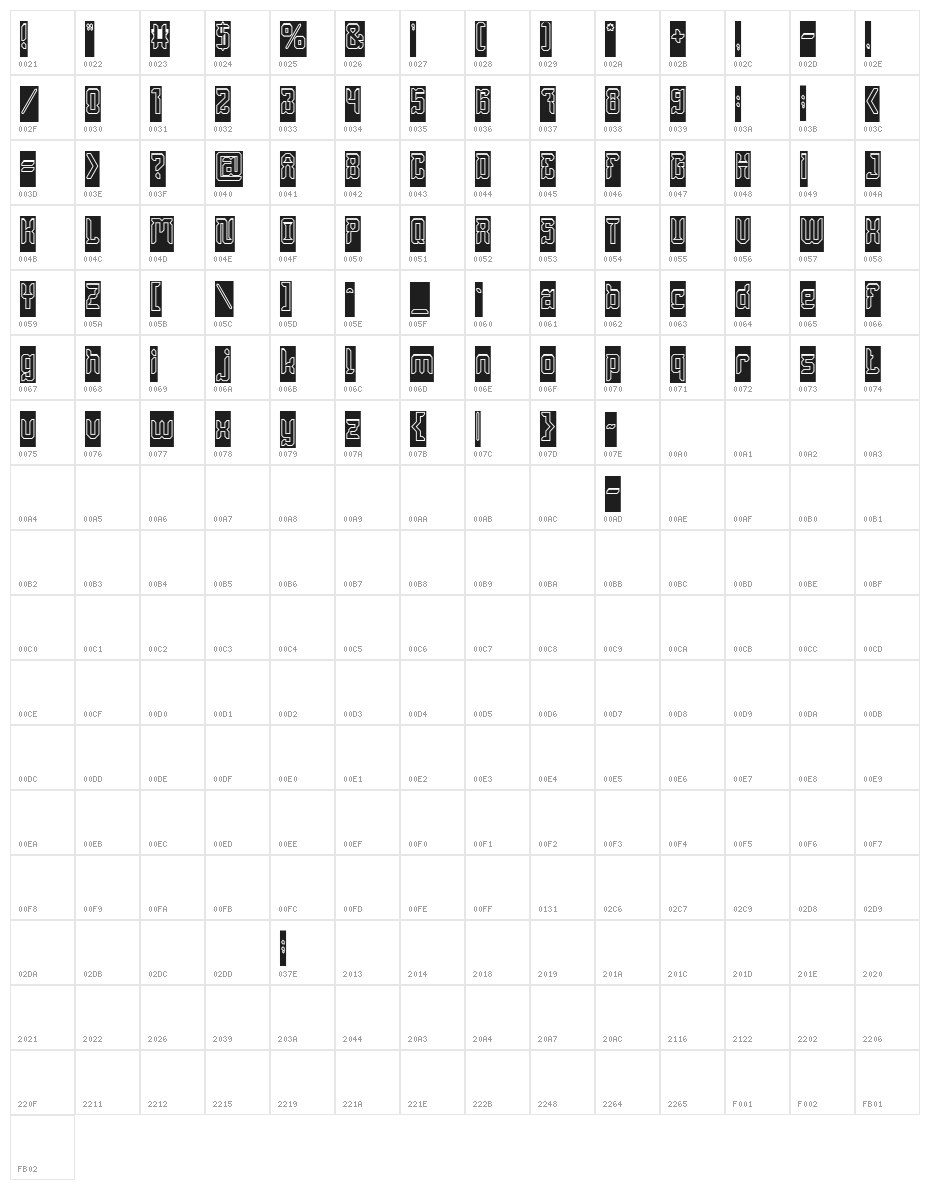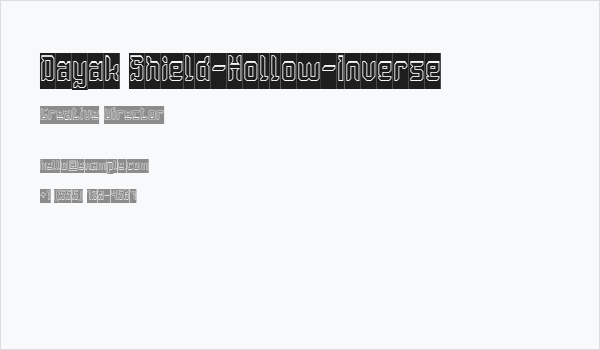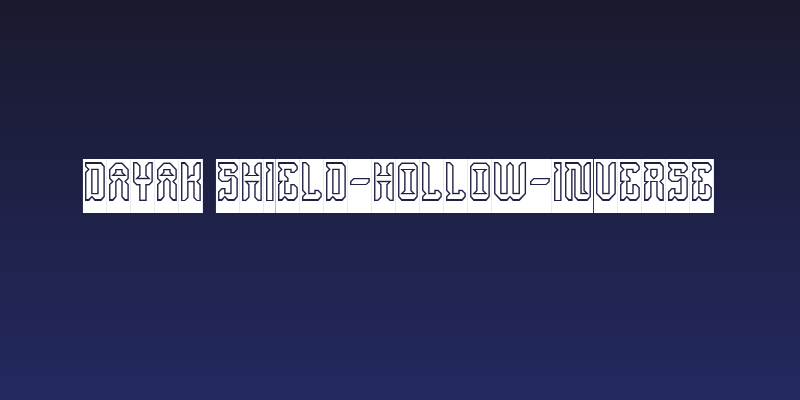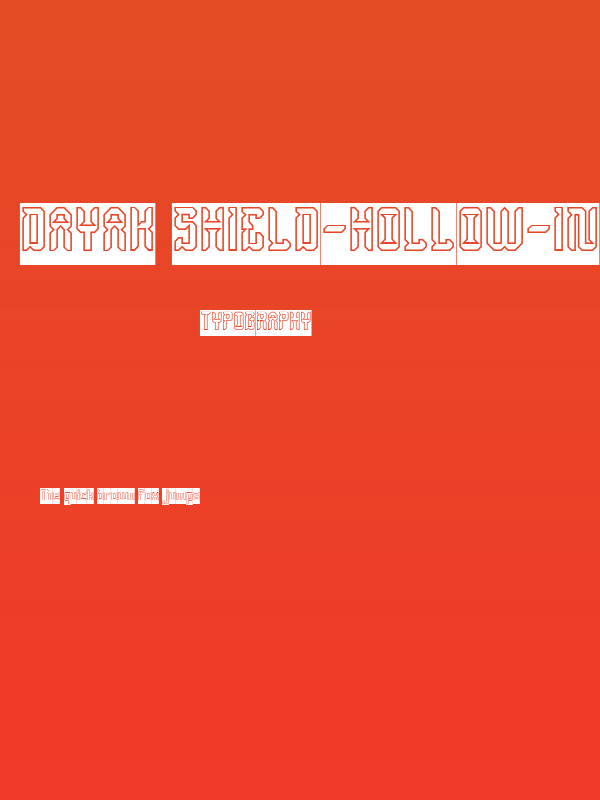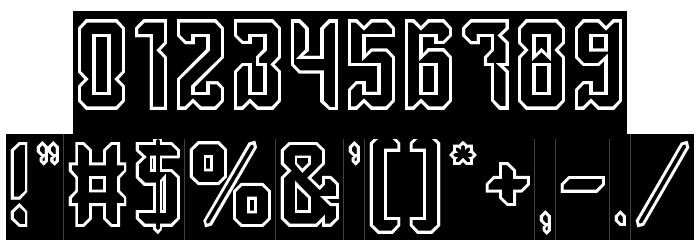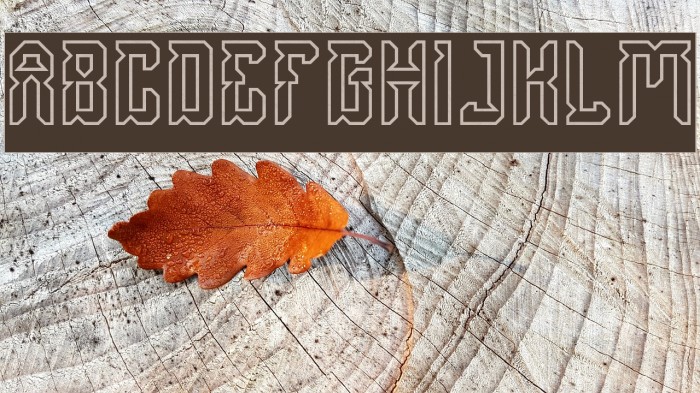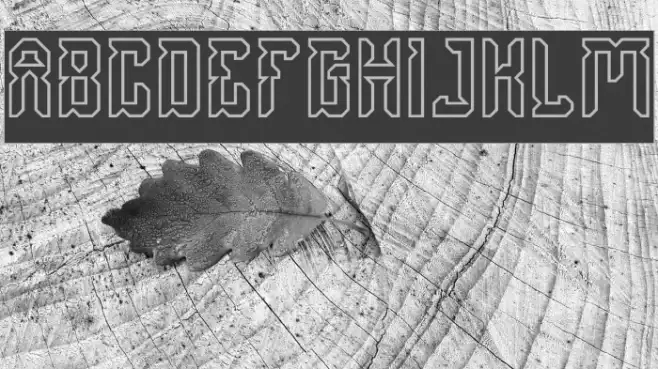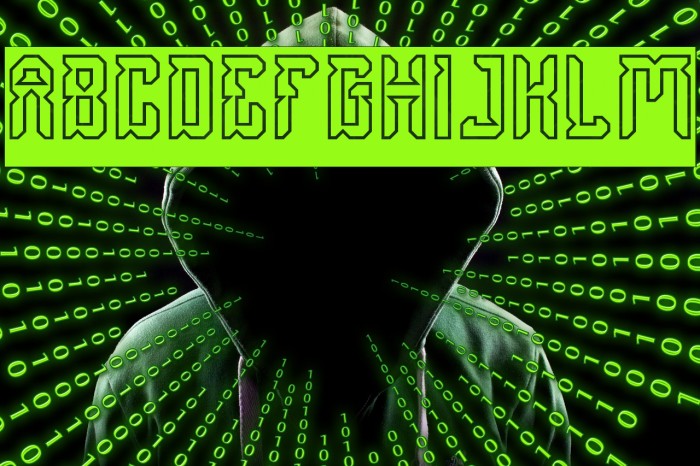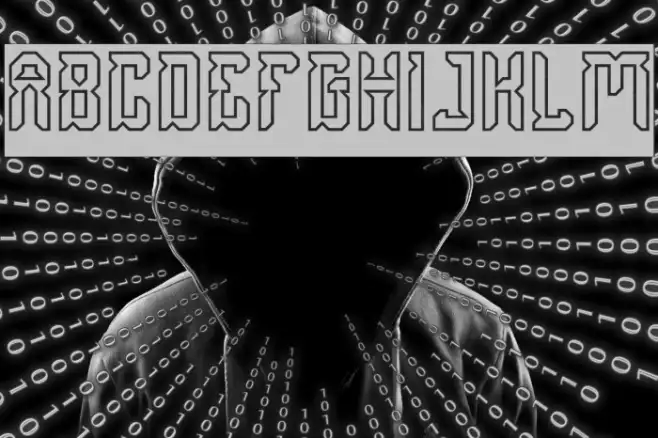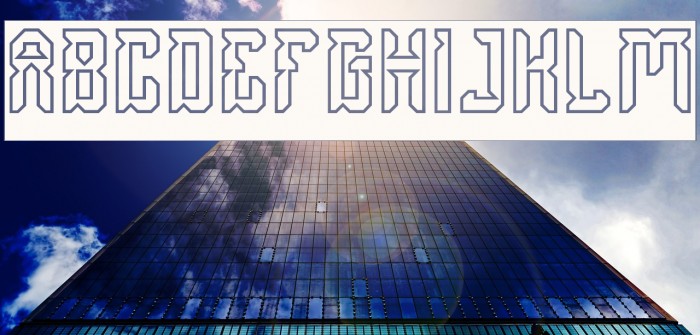
Dayak Shield-Hollow-Inverse Font
Dayak Shield-Hollow-Inverse Description
This font features a bold, hollow design with a geometric and angular style. The characters are outlined, creating a striking and modern appearance. The uppercase and lowercase letters maintain a consistent structure, with sharp edges and a futuristic feel. The numbers and special characters follow the same design principles, ensuring uniformity across the font. The hollow aspect gives it a unique, eye-catching quality, making it suitable for impactful designs. The overall look is both decorative and modern, ideal for projects that require a strong visual statement.
| Proposed Projects | Ideal for posters, logos, video game graphics, and any project needing a futuristic and bold aesthetic. |